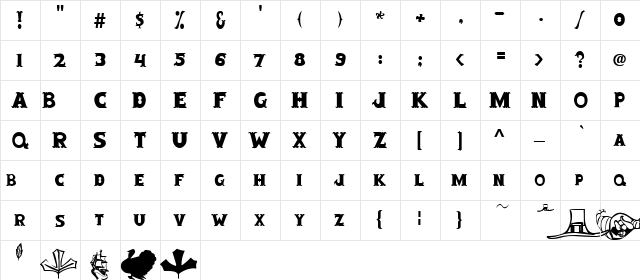
CLB-Thanksgiving-Base Regular
Design Context for CLB-Thanksgiving-Base Typeface
CLB-Thanksgiving-Base is a composed and adaptable typeface that performs quietly and consistently across a wide range of design contexts.